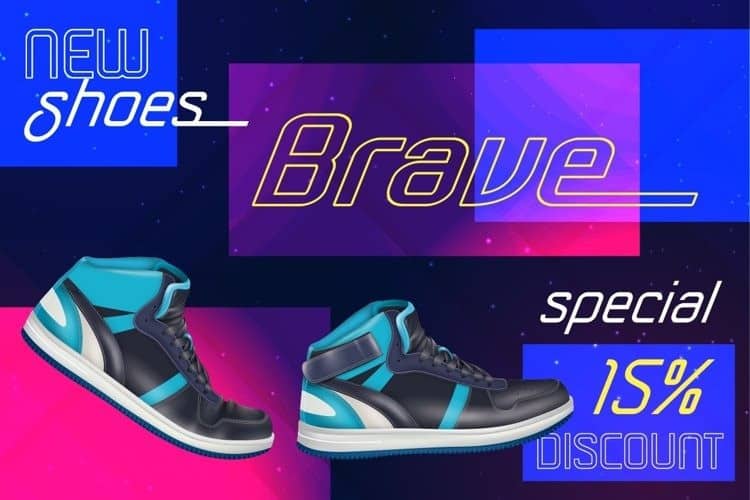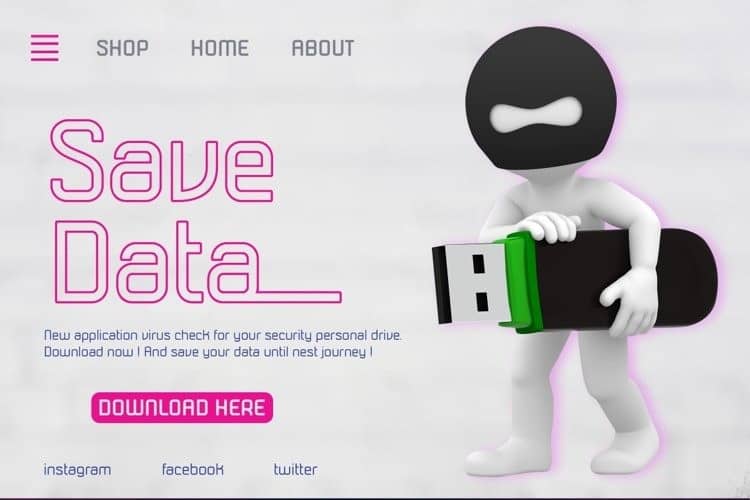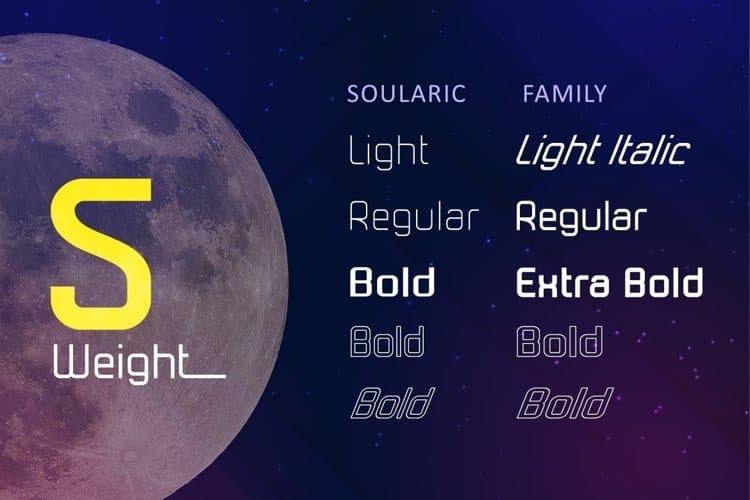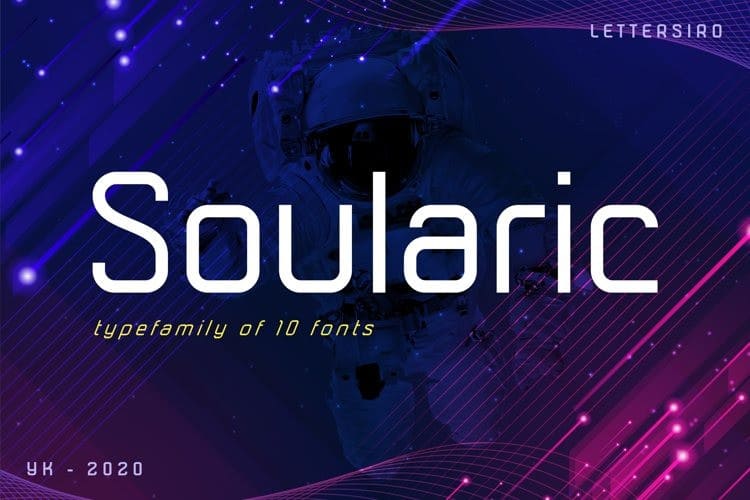
Soularic Sans Serif Font with strong and challenging nuances. It’s designed and shared by lettersiro co. This font bring your future imagination in your design porject. Never waste your time by looking other futuristic font. very suitable for the title, typography, clothes, Poster, magazines, brochures, packaging,Websites and much more for your design needs, making your designs more modern and professional.